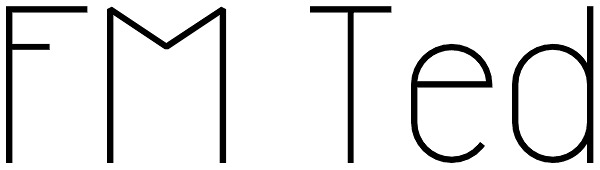
FM Ted
‘Ted’ is a geometric typeface. It is a synthesis of the geometric and the humanistic. It has both mathematical straightforwardness, and humanistic refinement. It will shine in both headlines and text. It is well suited for graphic design and...